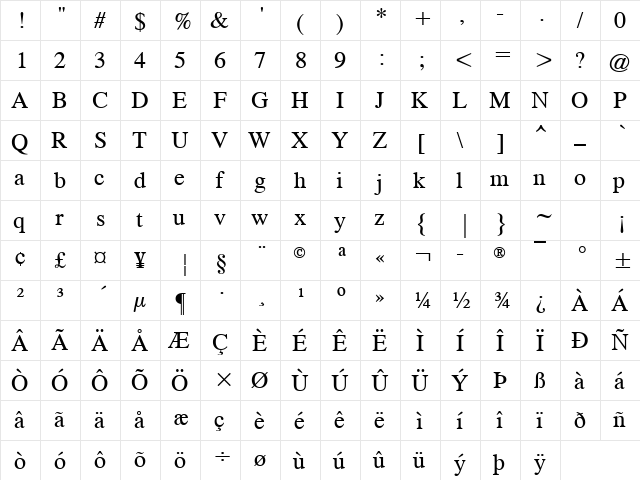
CG Times Regular Font Preview
CG Times Regular
Design Context for CG Times Typeface
CG Times is a composed and adaptable typeface that performs quietly and consistently across a wide range of design contexts.